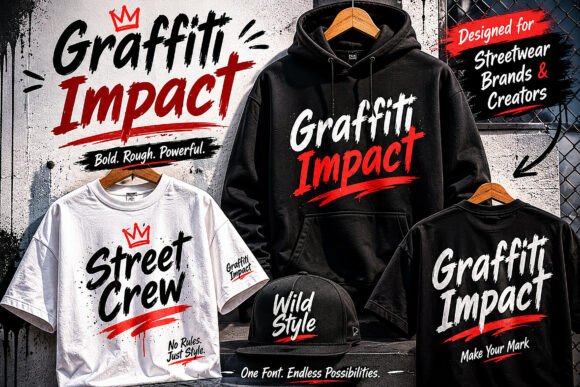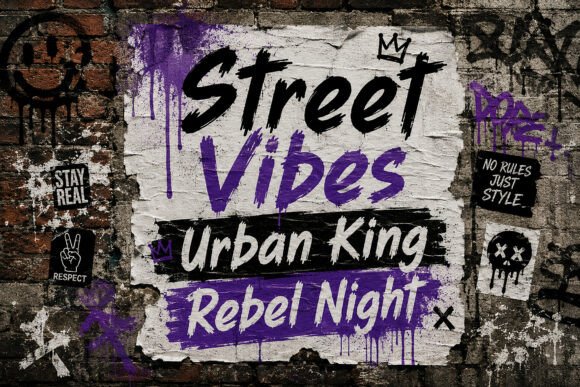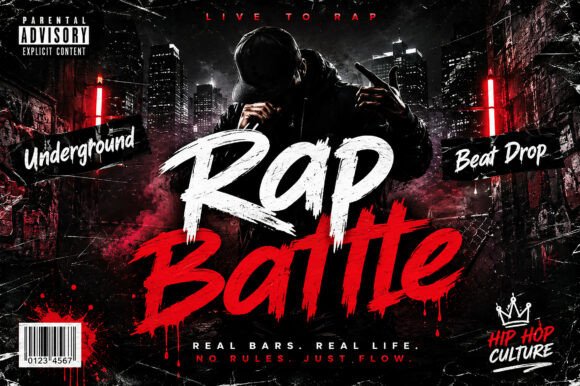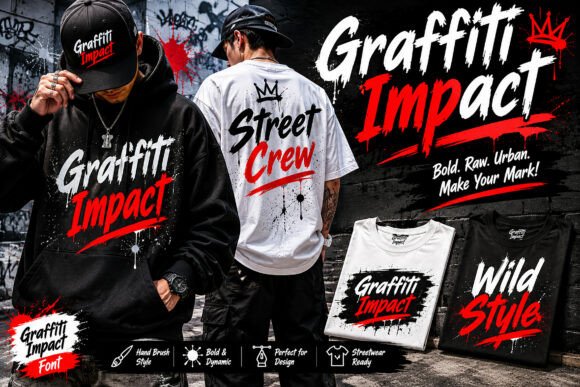
The Birth of a Street Art Masterpiece
You’re in the middle of a design session, struggling to find the perfect font to capture the essence of your urban-inspired project. The perfect combination of style and attitude is just out of reach. Suddenly, a spark of creativity hits you – a font that embodies the raw energy of street art, the rebellious spirit of hip-hop, and the bold strokes of modern graffiti lettering. That’s where Graffiti Impact Font comes in, a game-changing typography that adds a fearless and artistic edge to your work.
Designed to deliver a powerful visual impact, Graffiti Impact Font is the perfect tool for designers who want to create authentic street-style artwork. Its rough brush strokes, hand-painted texture, and bold attitude make it a valuable asset for any project, from music posters to streetwear branding.
- Unique Characteristics: Graffiti Impact Font is a distressed, graffiti-style font that features bold, edgy lines and a rough texture, making it perfect for adding a touch of urban grit to your designs.
- Font Weight and Style: Graffiti Impact Font is available in regular and bold weights, allowing you to add depth and emphasis to your text.
Graffiti Impact Font Review
I recently had the chance to work with the Graffiti Impact Font, and I have to say, it’s a unique addition to any design project. Here’s my honest review.
- Eye-catching: The font is certainly attention-grabbing, perfect for making a bold statement in your designs.
- Highly customizable: The font’s bold and graffiti-style characteristics make it a great fit for any number of design projects, from posters to social media graphics.
- Expressive: Graffiti Impact Font is great for conveying a sense of energy and creativity in your designs.
- Readability: The font can be a bit overwhelming, making it difficult to read for extended periods of time.
- Formality: Graffiti Impact Font is not suitable for formal or professional projects, as it may come across as too casual or playful.
Overall, I think Graffiti Impact Font is a fun and creative option for designers looking to add some edge to their projects. While it may have its limitations, it’s a great choice for those looking to make a bold statement or convey a sense of energy and creativity.
Tips for Getting the Most Out of Graffiti Impact Font
Use Graffiti Impact Font for bold, eye-catching headlines and titles.
Combine Graffiti Impact Font with other fonts for a unique and creative look.
Experiment with different font sizes and styles to achieve the desired effect.
Graffiti Impact Font is perfect for:
Music festival posters
Streetwear brand logos
Urban art-inspired designs
Edgy, avant-garde designs
Alternatives to Graffiti Impact Font for Designers
1. Comic Sans MS
Comic Sans MS is a sans-serif font designed to mimic the look of comic books. It is playful and informal, making it suitable for children’s books, newsletters, and other casual applications. Unlike Graffiti Impact Font, Comic Sans MS has a more rounded and childlike feel.
Great Vibes is a modern, sans-serif font with a friendly and approachable feel. It is ideal for use in advertising, social media, and other digital applications where a clean and modern look is desired. Compared to Graffiti Impact Font, Great Vibes is more minimalist and lacks the bold, graffiti-inspired feel.